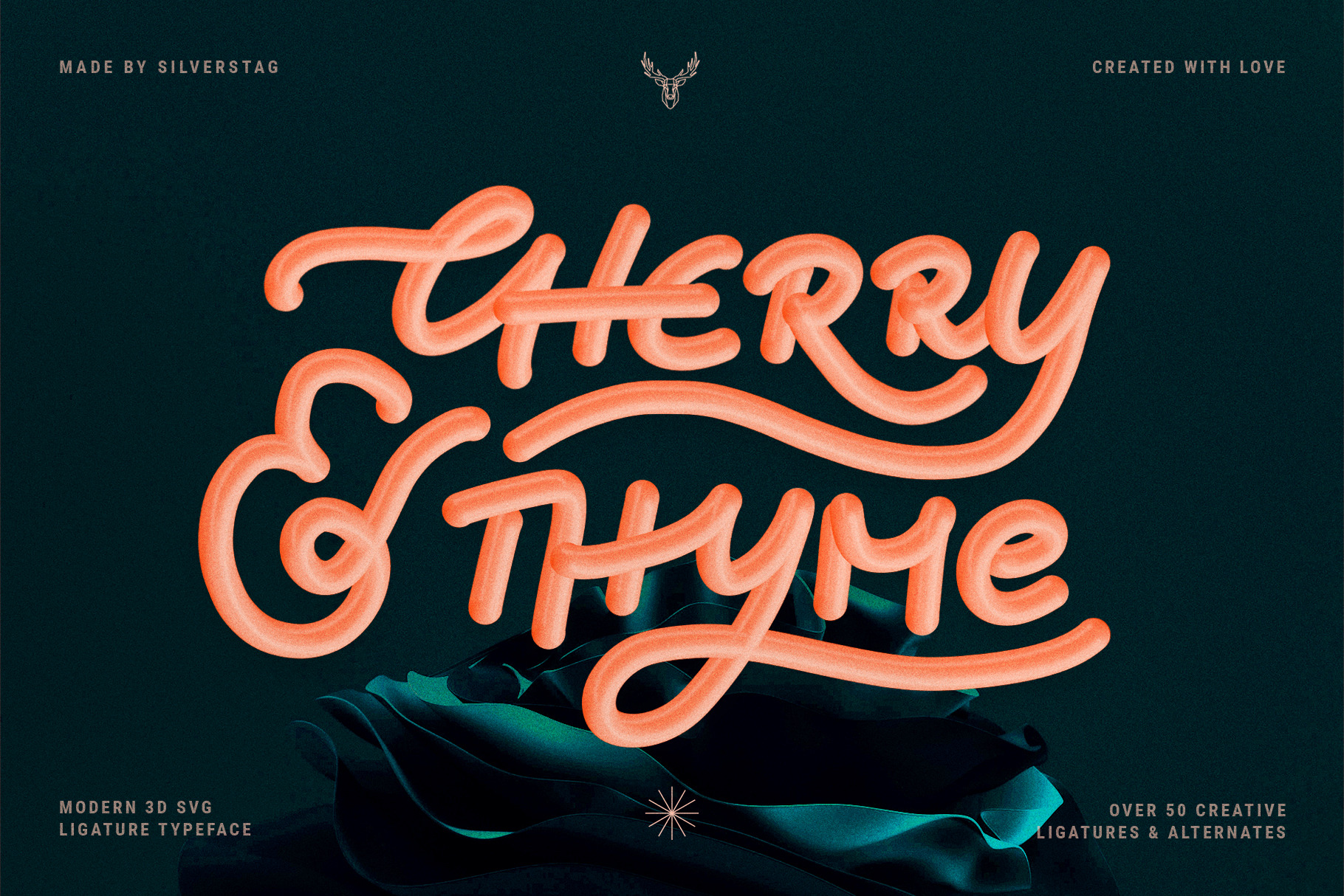
Hey guys, we're already one month into spring, and spring for me usually means something new, different, doing the things I didn't do before, experimenting. So, here's something completely different and unique on the marketplace. A true handwritten 3D SVG font with over 50 unique ligatures and alternate letters!
50+ Ligatures and Alternates for a unique handwritten look and feel